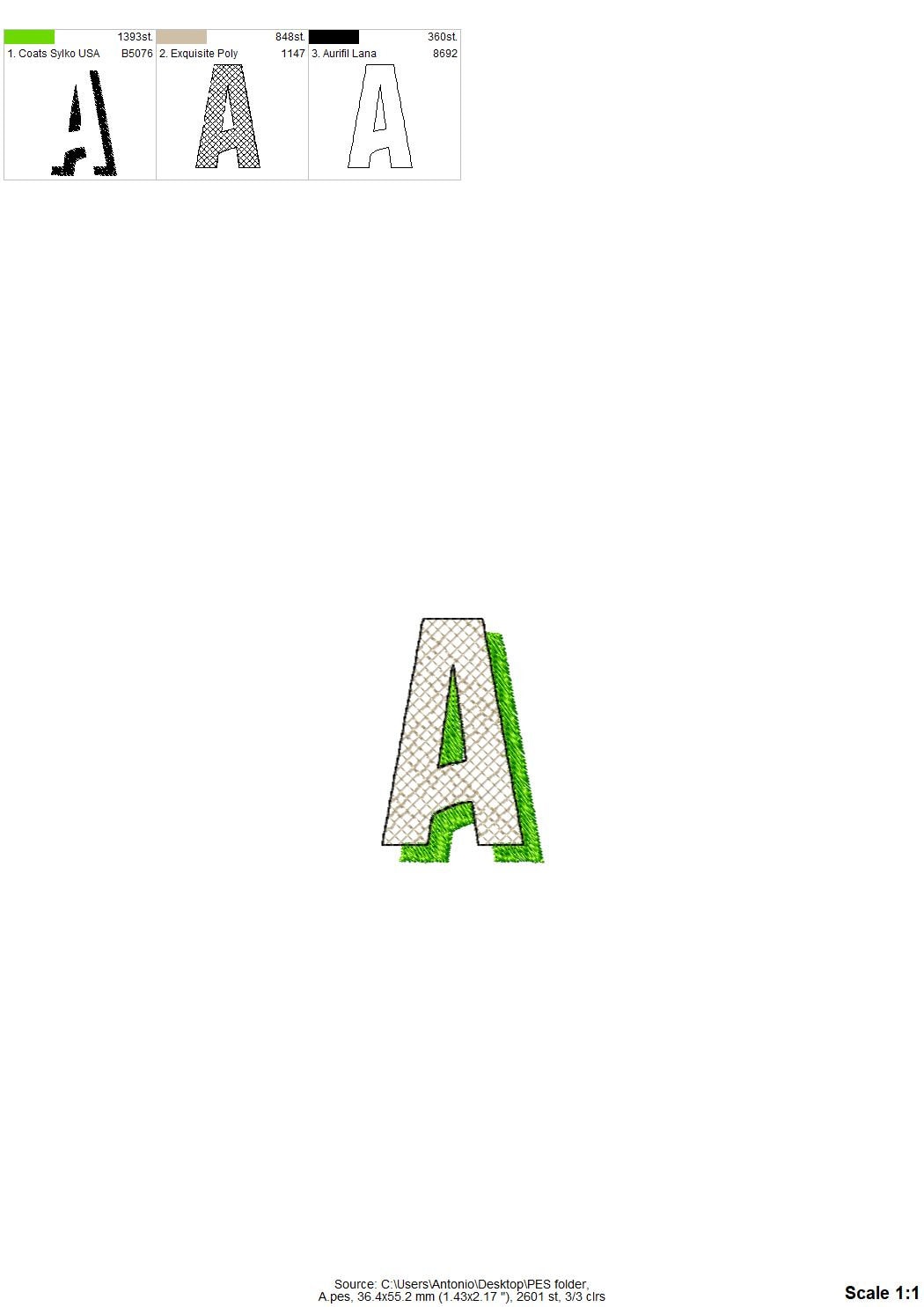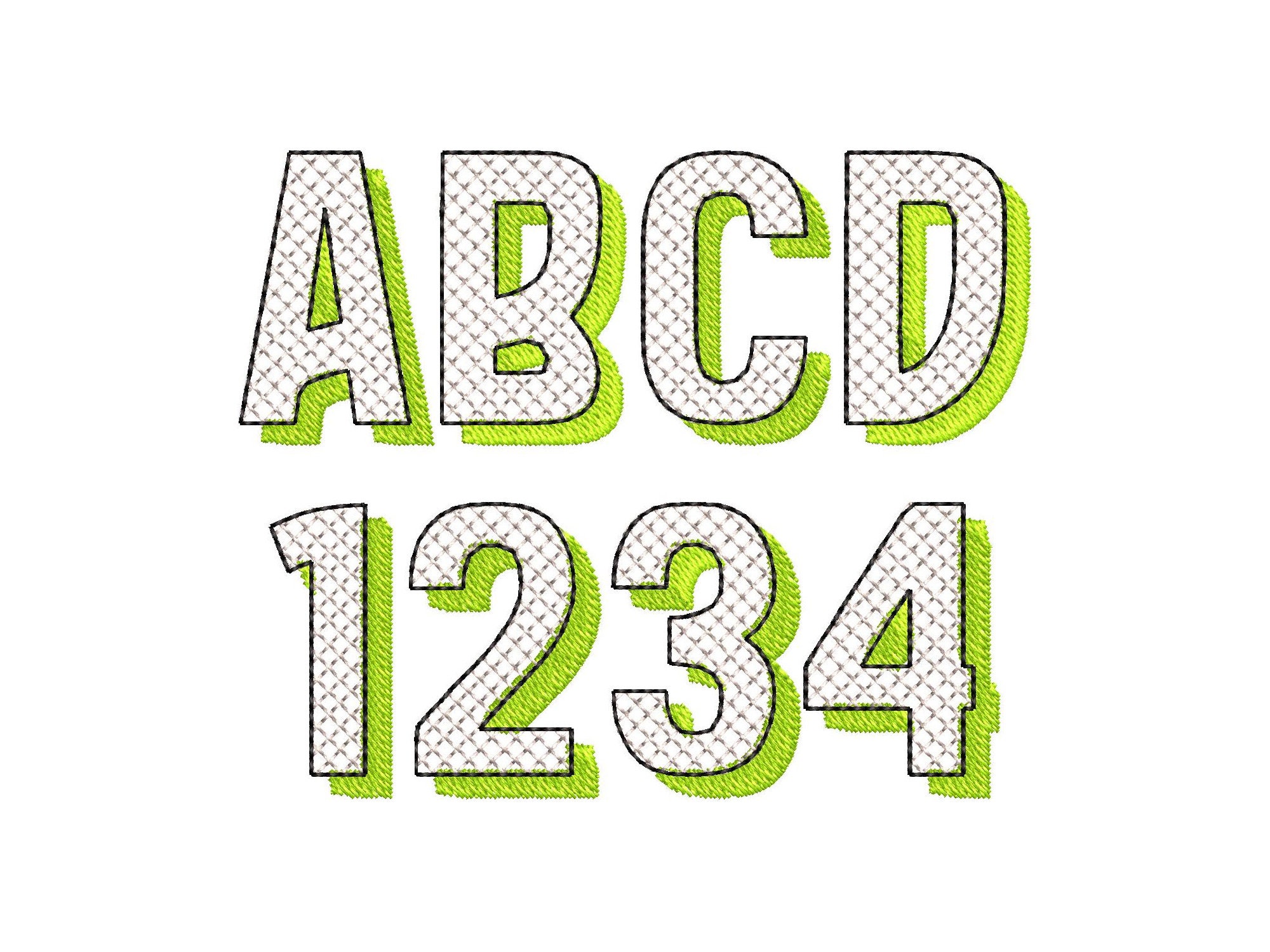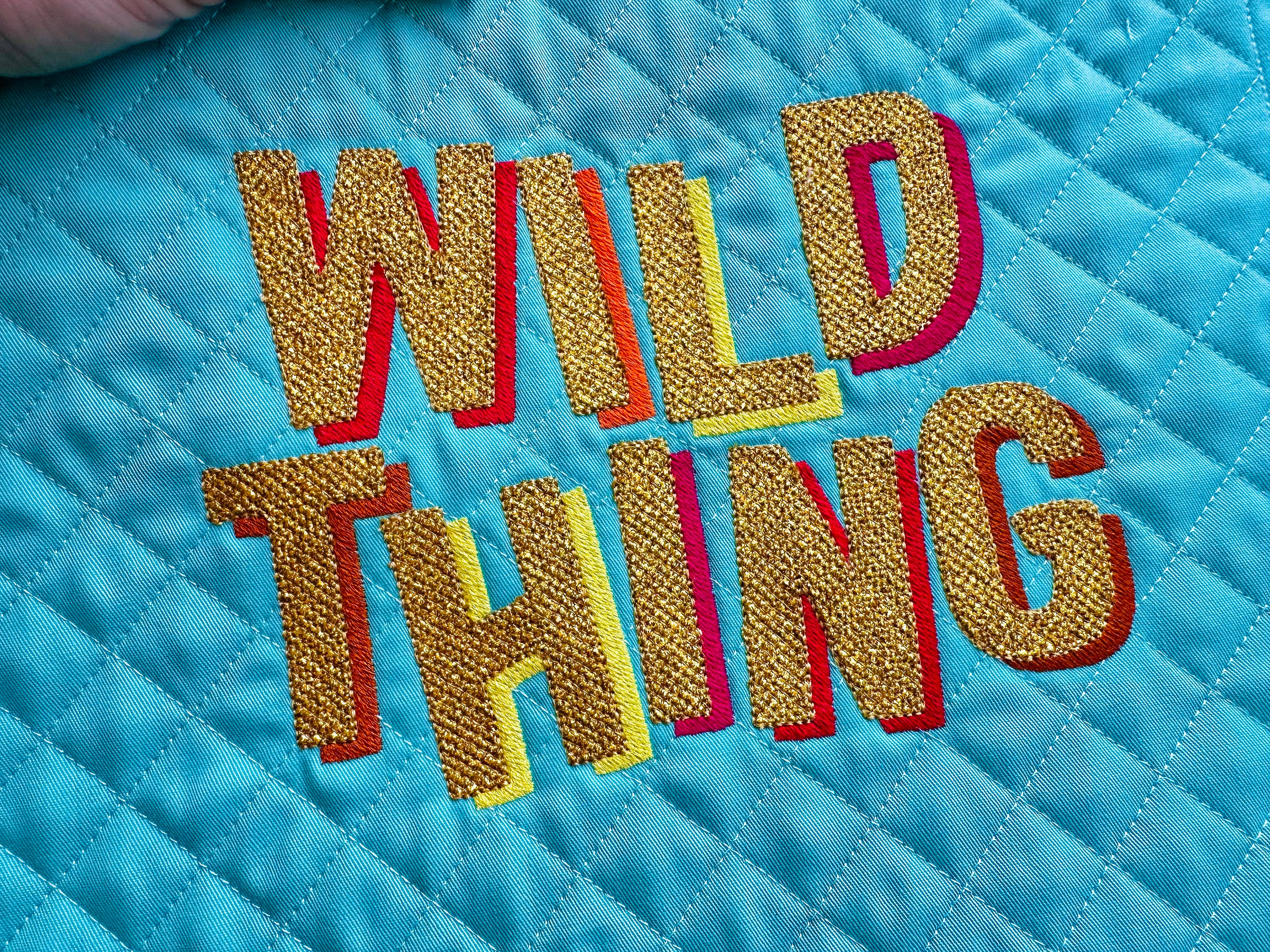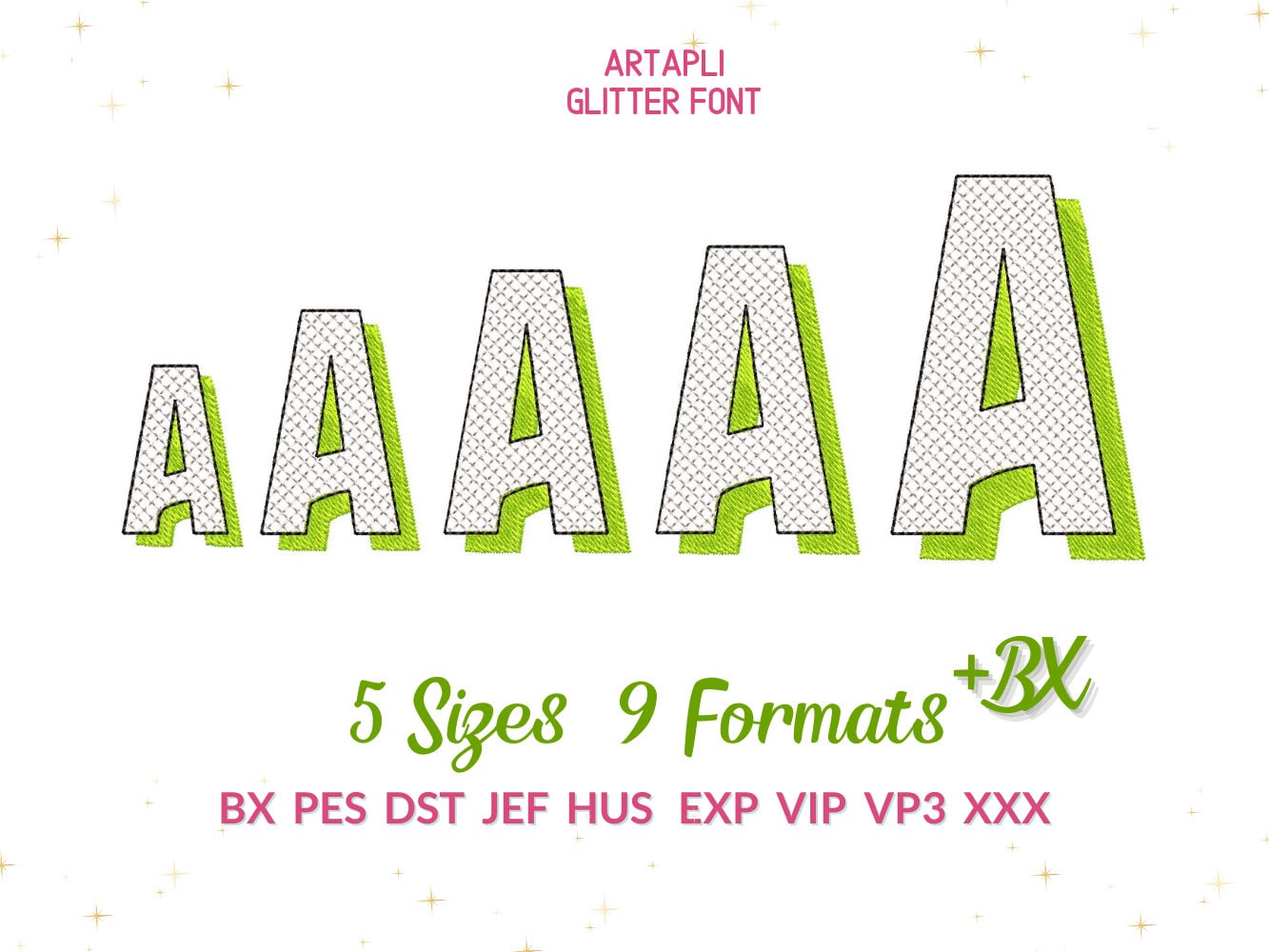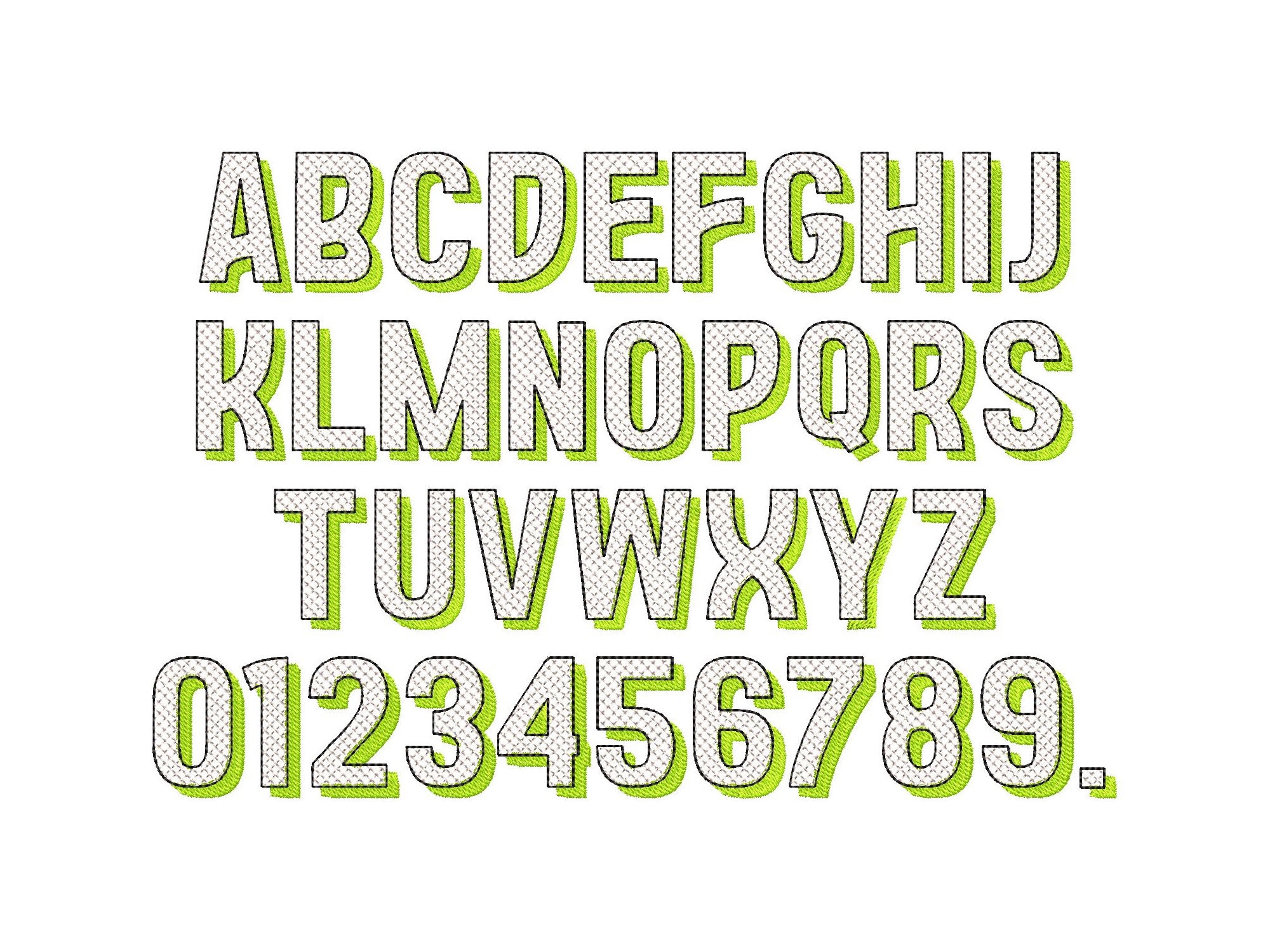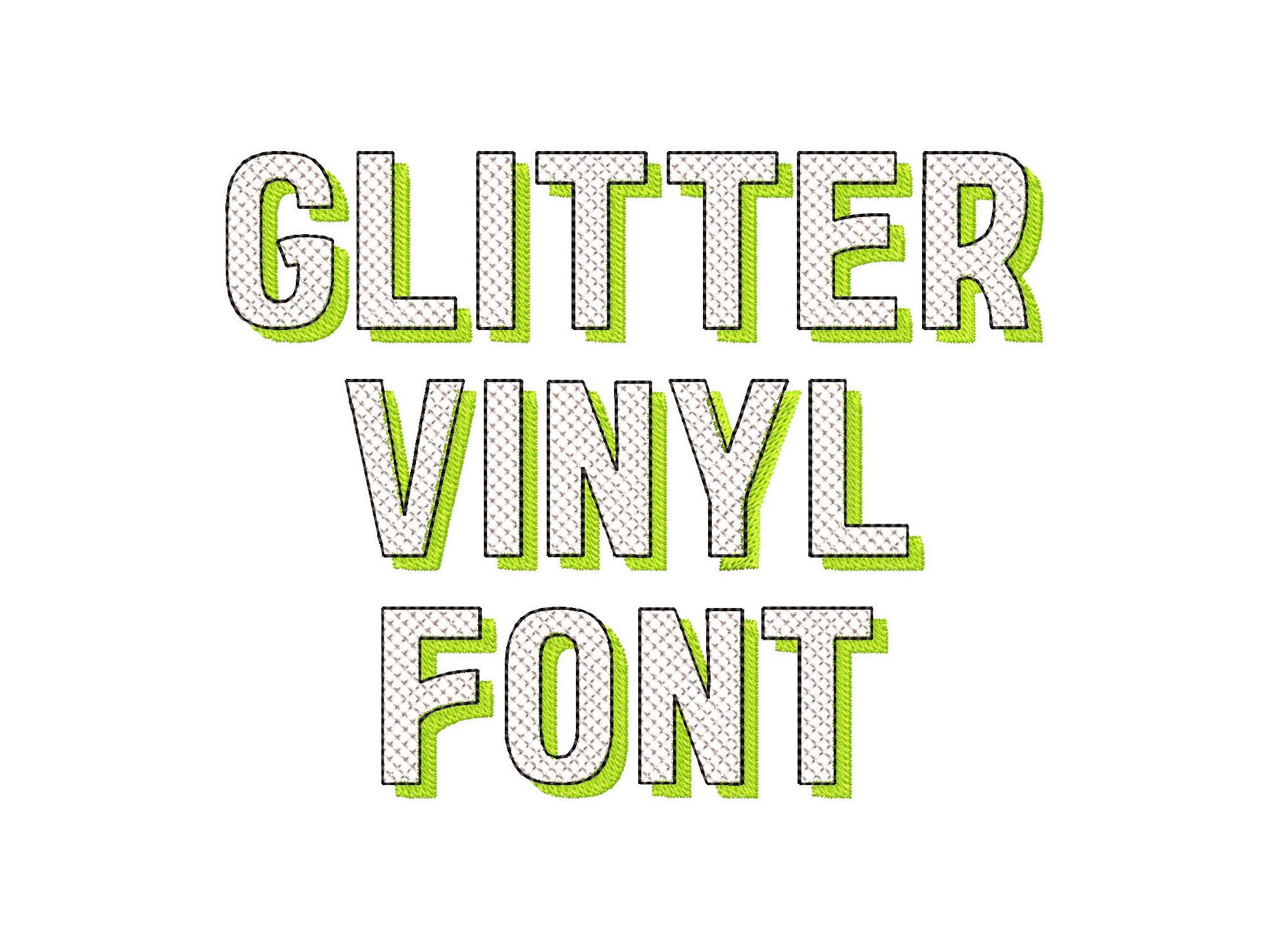
Block Glitter Shadow Font HTV glitter monogram sparkle effect alphabet letters machine embroidery designs sizes 1.4 up to 3 inch and BX
Entire alphabet uppercase A-Z, numbers 0-9, and dot .